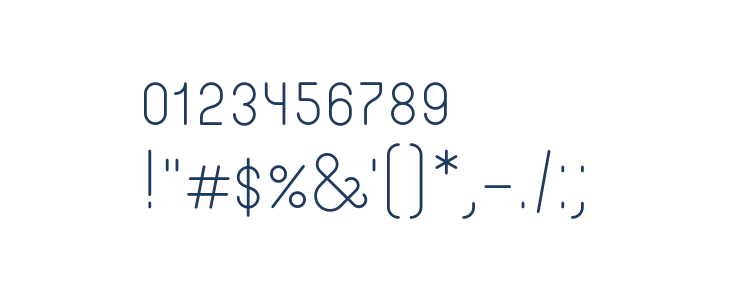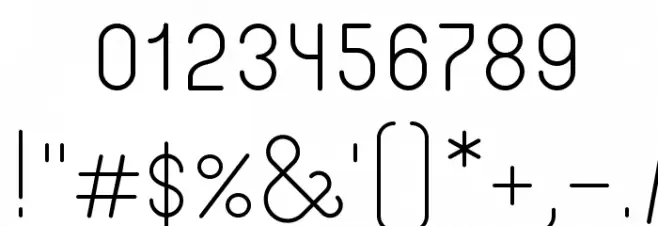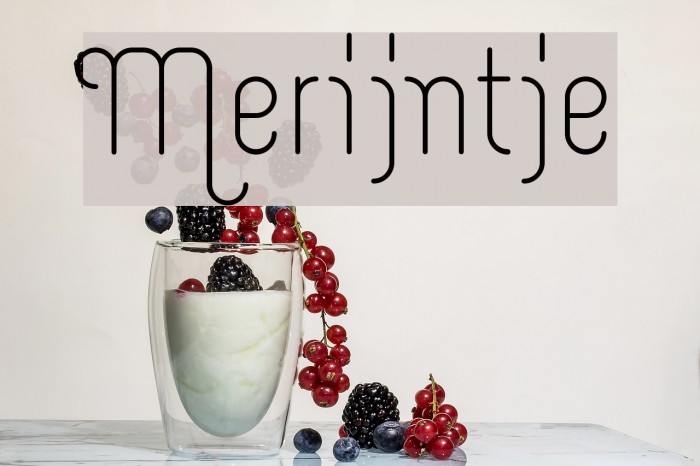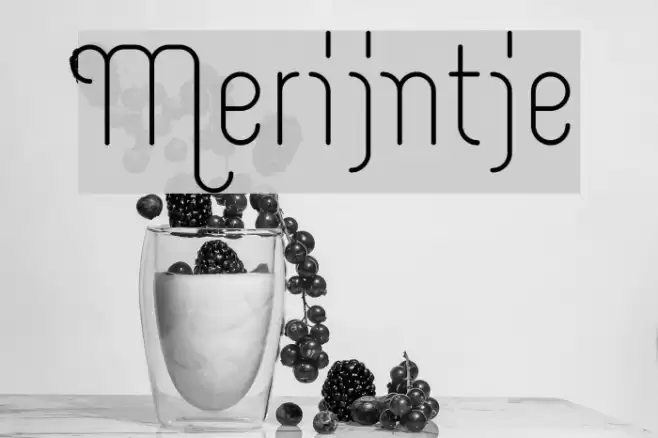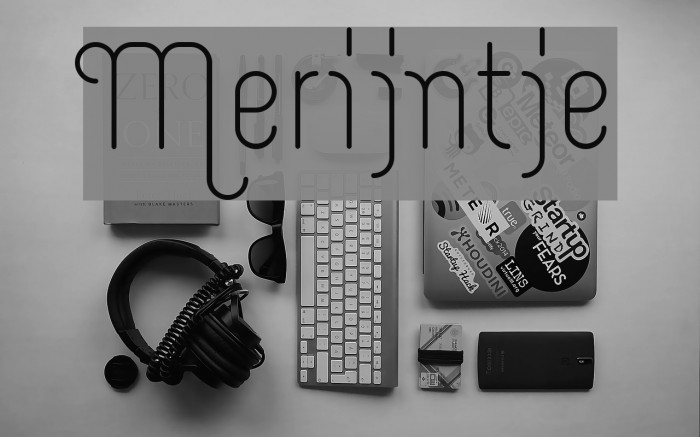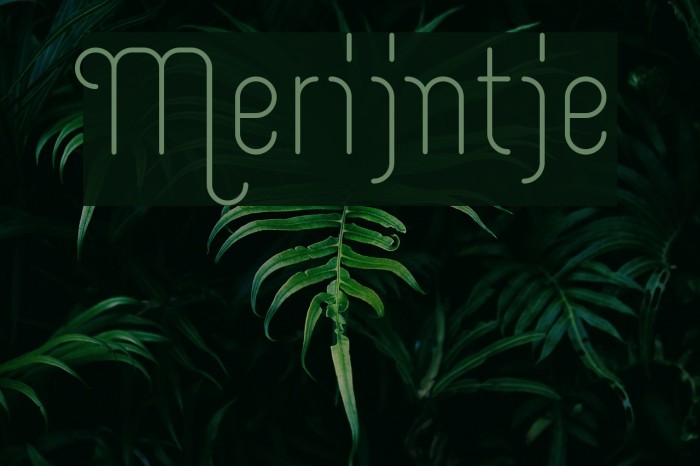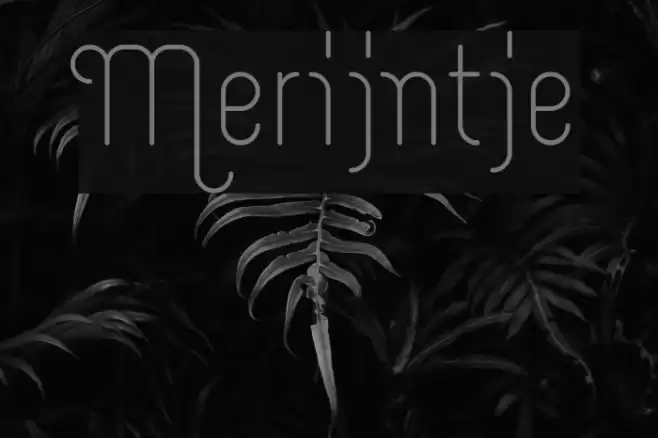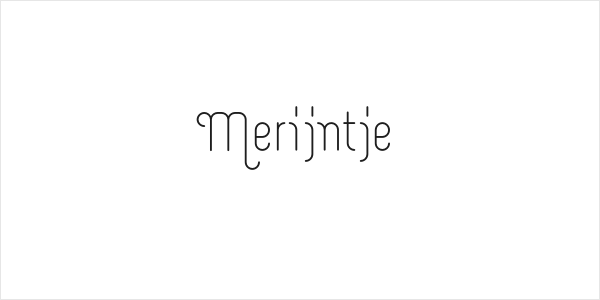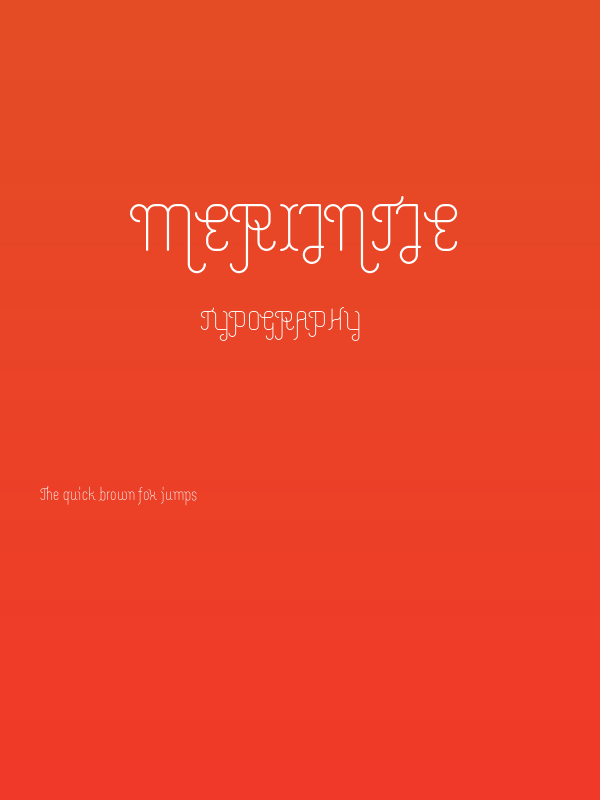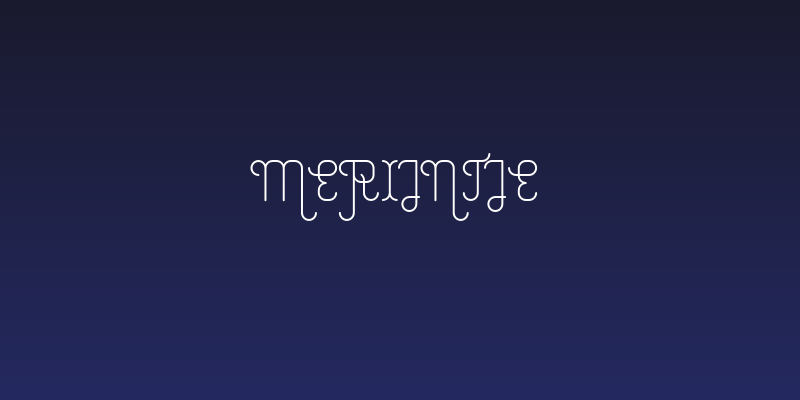
Merijntje Font
Merijntje Description
This font features a unique and modern design with a geometric and monolinear structure. The characters are crafted with a continuous line that forms both the uppercase and lowercase letters, as well as numbers and special symbols. The uppercase letters have a distinct, interconnected style, giving them a decorative and artistic appearance. The lowercase letters maintain a more straightforward and clean design, which balances the overall aesthetic. The numerals are consistent with the font's geometric theme, offering clarity and readability. Special characters are thoughtfully integrated, maintaining the font's cohesive look.
| Proposed Projects | Ideal for branding, logo design, modern art projects, and creative posters. |